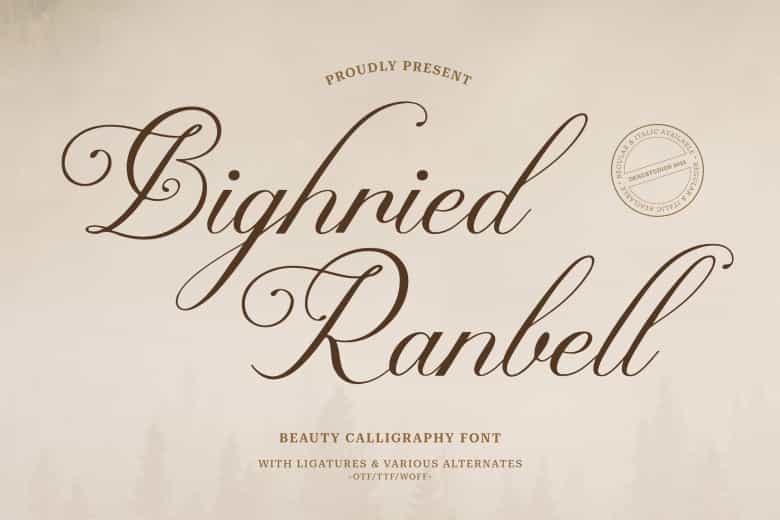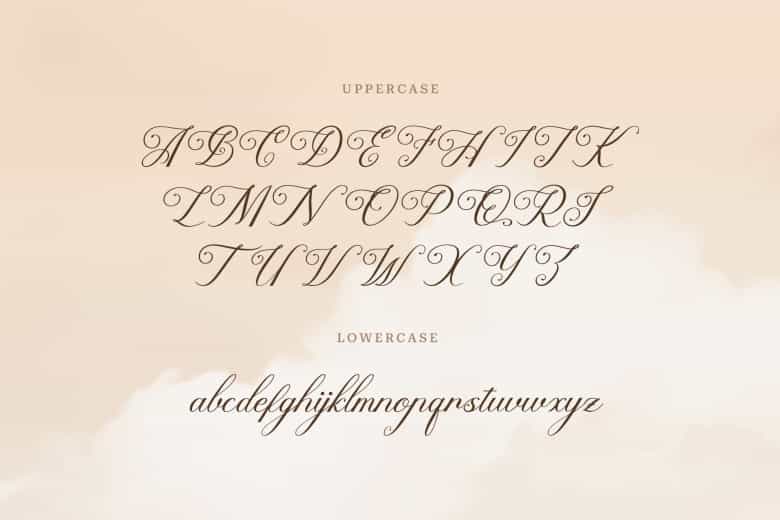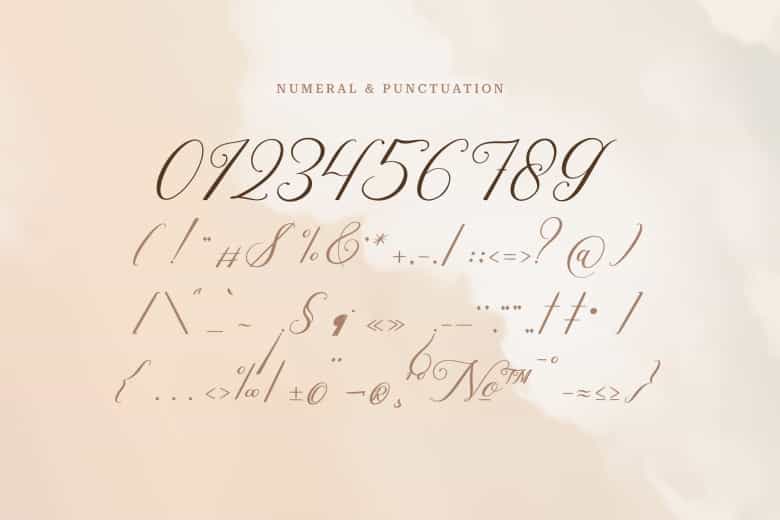
Discover Bighried Ranbell Font, part of the Calligraphy collection—a versatile and unique font perfect for adding a personal touch to your projects. Download it for free and enjoy crafting designs with style, from invitations to social media posts. This font is available exclusively for personal use, giving you the freedom to create without limits. Unlock your creativity with Bighried Ranbell Font today!
Bighried Ranbell is a premium script typeface that can be used for a variety of projects like logos, branding projects design, homeware, packaging of products, mugs quotes posters, shopping bags books, t-shirts, invitation cards, name card greeting cards, labels photographs, watermarks special occasions and many more.